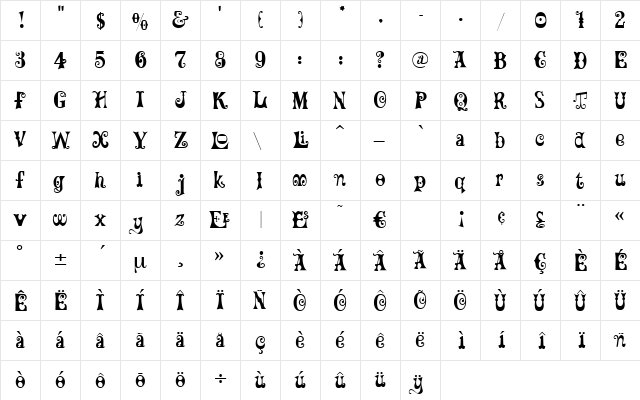
Sanremo Regular
Design Context for Sanremo Typeface
Sanremo is a composed and adaptable typeface that performs quietly and consistently across a wide range of design contexts.